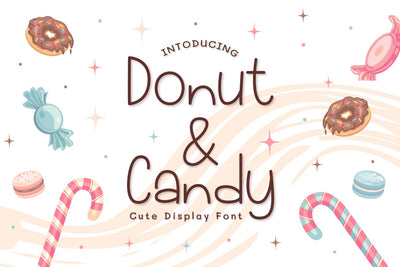
Donut Candy
Introducing Donut Candy Font by Tlatoustype
Donut Candy is a Modern Monoline Handwritten Font.
Donut Candy is perfect for book cover, product packaging, branding project, megazine, social media, wedding, or just used to express words above the background.